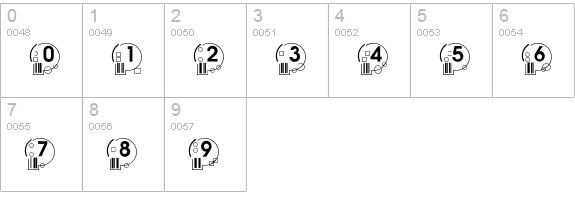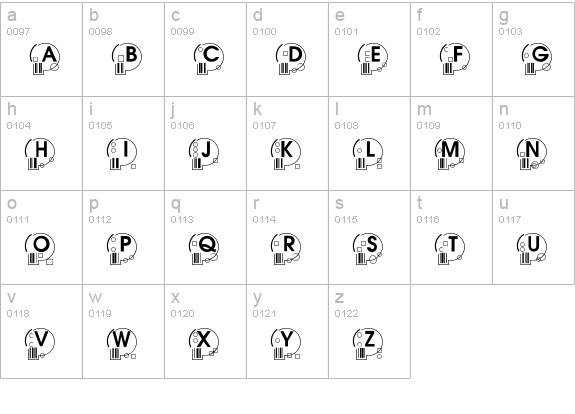
WhatPossUse Font Details
WhatPossUse font is a stunning typeface that combines modern elegance with timeless charm. With its clean lines and sophisticated curves, this font is sure to make a bold statement in any design project. Featuring a versatile range of weights and styles, WhatPossUse font offers endless possibilities for creative expression. Whether you're designing a logo, a website, or a poster, this font has the versatility to adapt to any concept or theme. One of the best things about WhatPossUse font is that it is completely free. You heard that right - this incredible font is available for download at FontsMarket.com without any cost. This means that you can enjoy the beauty and versatility of WhatPossUse font without breaking the bank. With its wide range of characters and glyphs, WhatPossUse font supports multiple languages and is perfect for international projects. Its legibility and readability make it an excellent choice for both print and digital designs. Whether you're a professional designer or a hobbyist, WhatPossUse font is a must-have in your font collection. Its sleek and modern aesthetic will elevate your designs and make them stand out from the crowd. So why wait? Head over to FontsMarket.com and grab your free download of WhatPossUse font today. Enhance your designs and unleash your creativity with this incredible typeface.